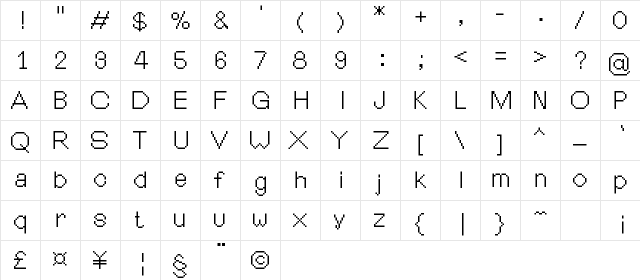
MHTIROGLA Medium
Design Context for MHTIROGLA Typeface
MHTIROGLA takes a measured approach to typography — its balanced proportions and neutral character make it a reliable workhorse for both digital and print work.
Pro Tip: Use MHTIROGLA in both headline and body roles to test its range before committing to a single application.